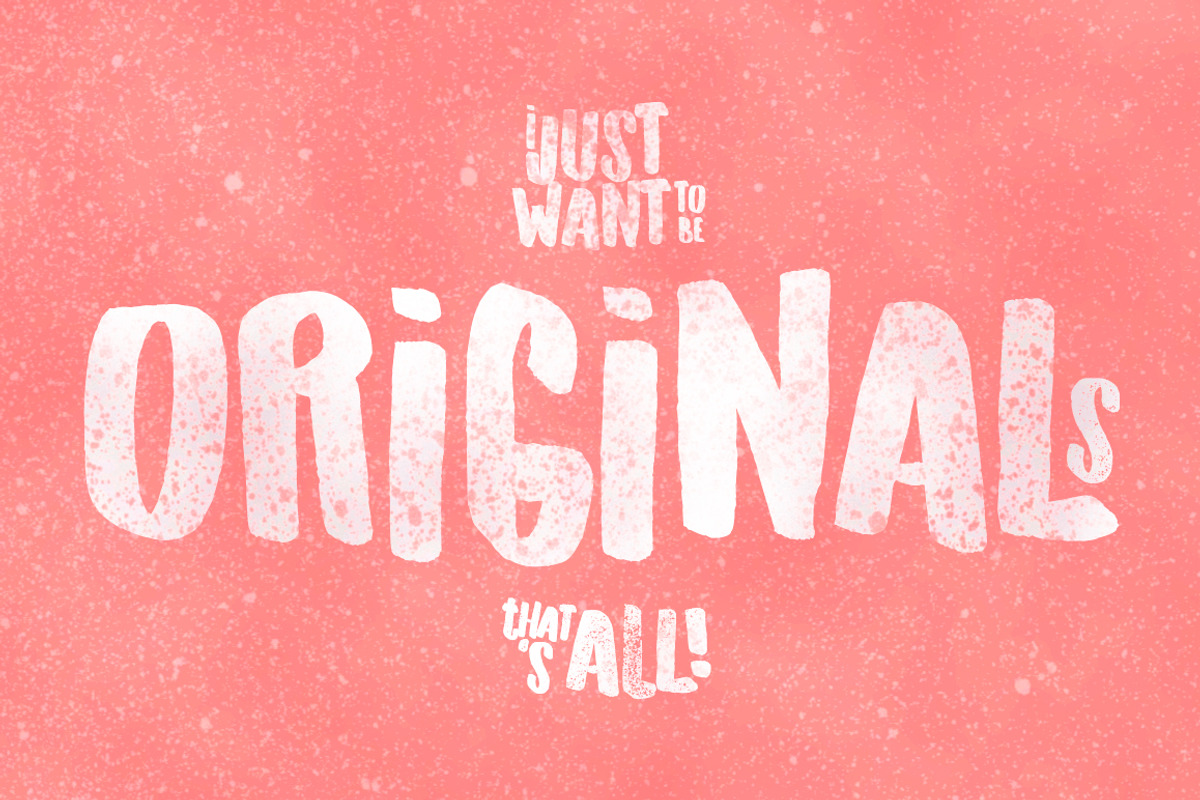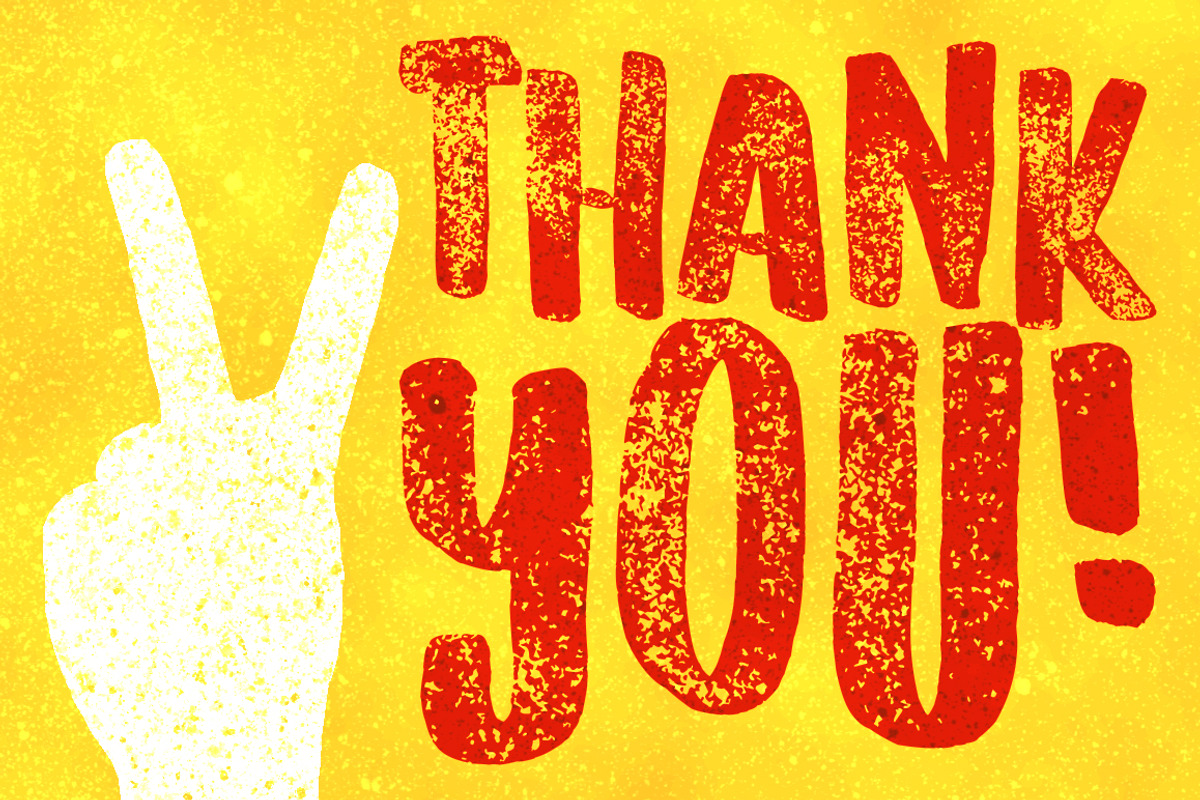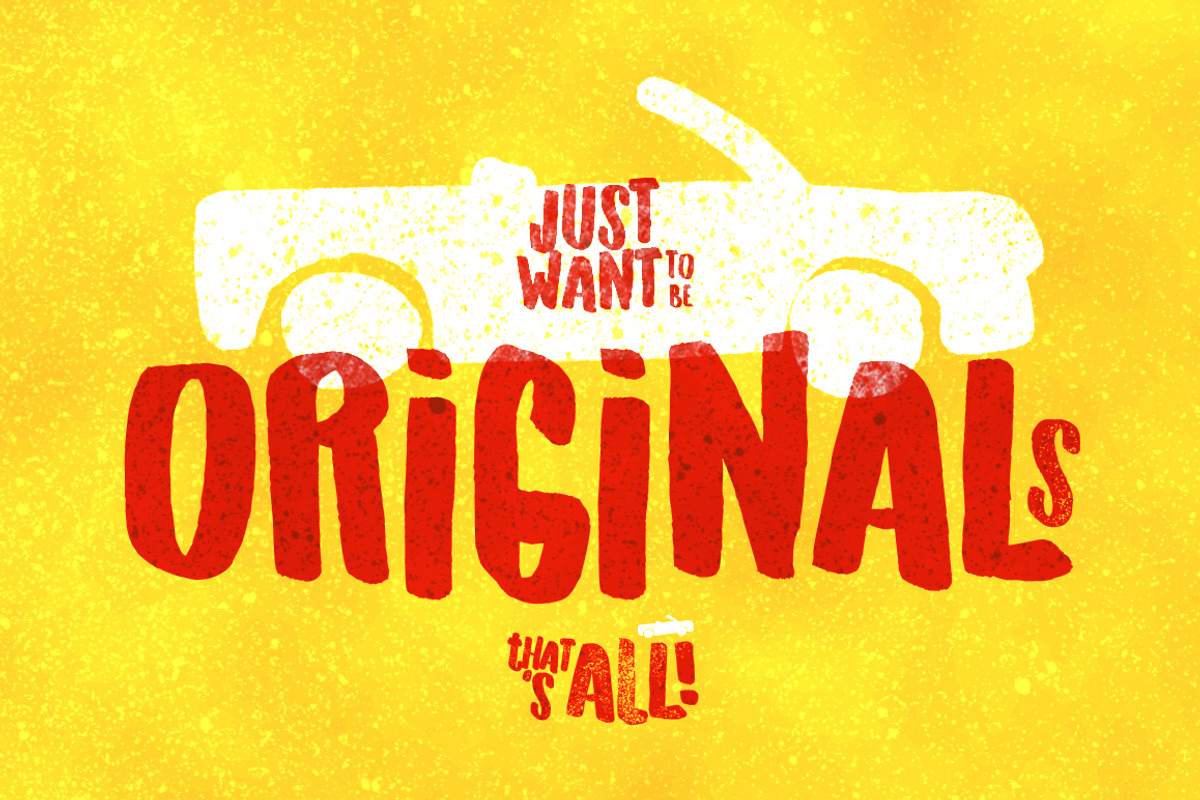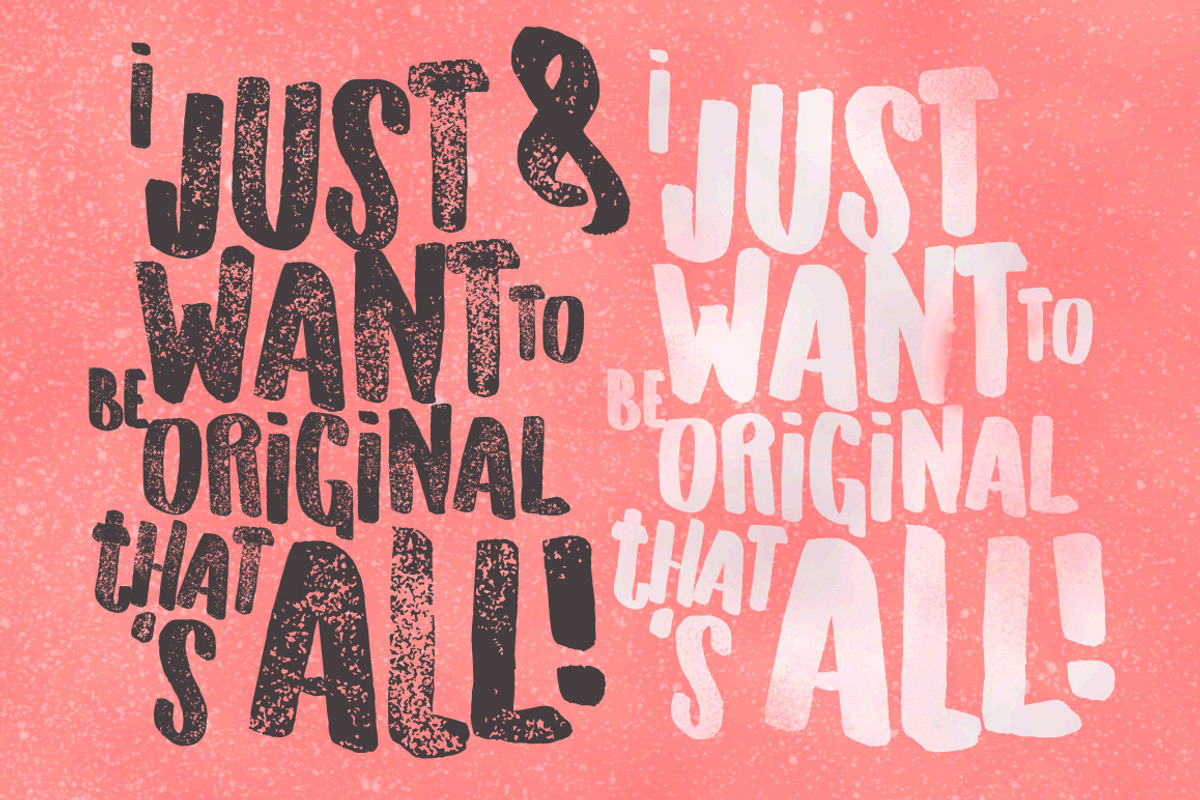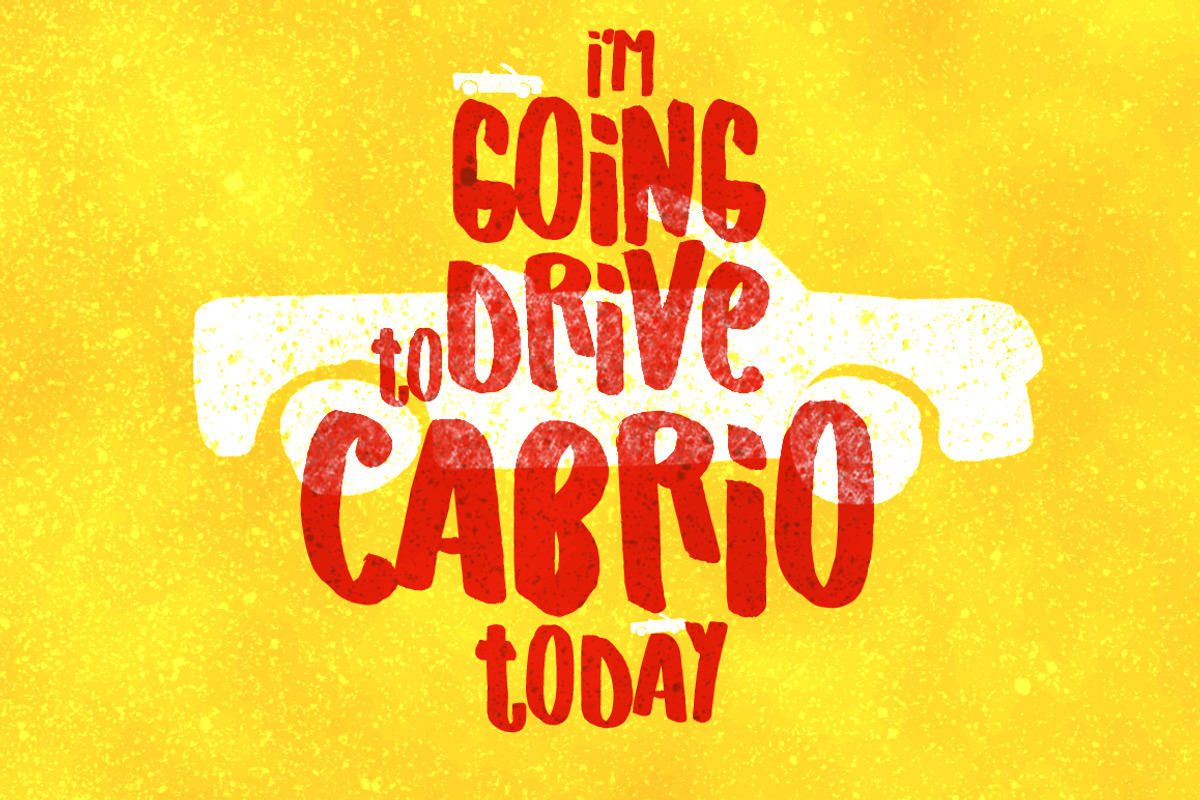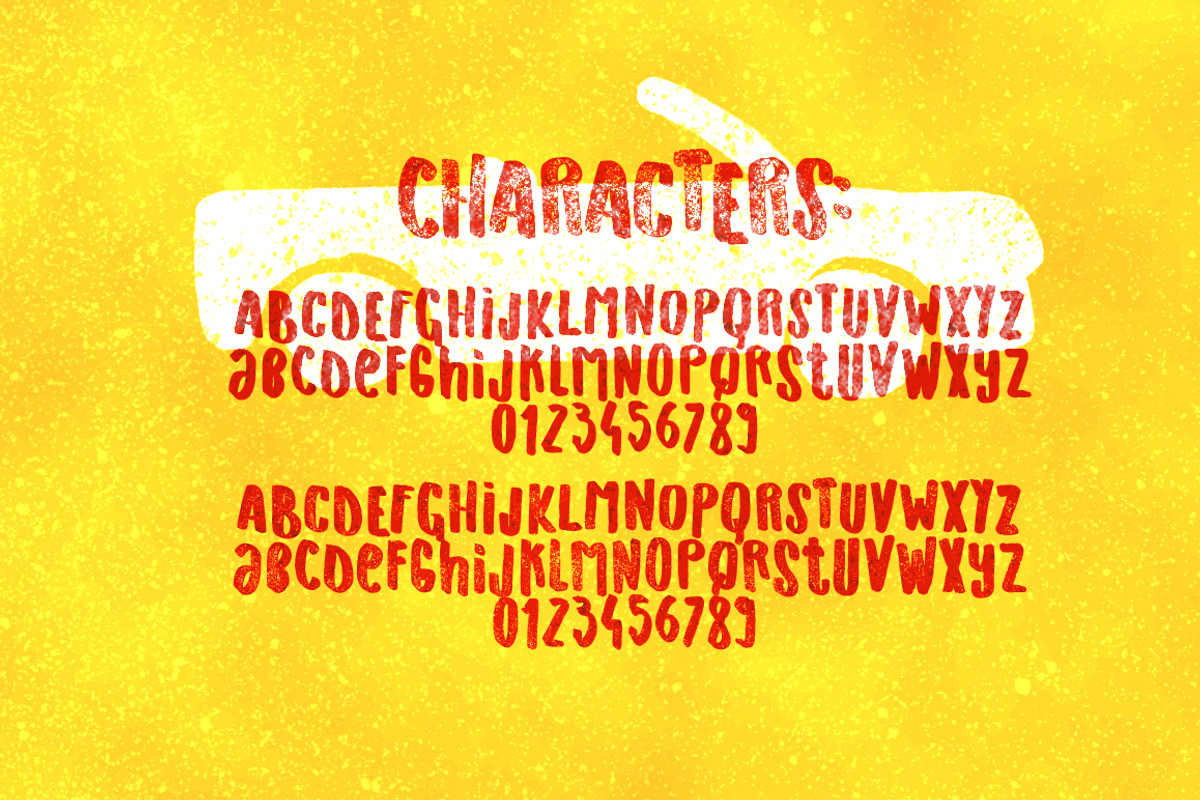
Originals Typeface
Originals Typeface by LeoSupply.co is a font selected for branding, posters, packaging, typography.
Why Originals Typeface is worth a look
Originals Typeface by LeoSupply.co fits naturally into Branding, posters, packaging, typography.